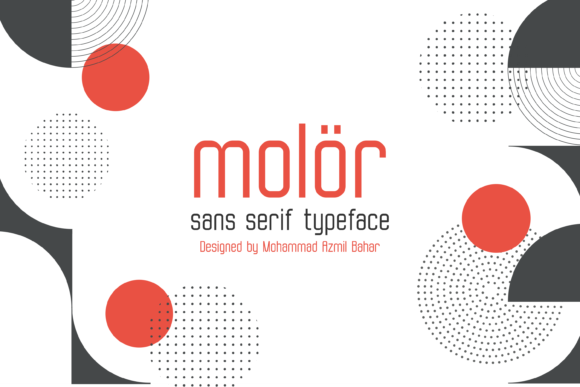
Molor Font
Indulge in the irresistible charm of Molor, a sans serif font that exudes a playful spirit with a dash of modern sophistication. Emanate creativity with every stroke, as Molor's unique and playful nature inspires your designs. Let its friendly curves and inviting lines capture attention, igniting a spark of joy and wonder in your projects.
Embrace the boundless possibilities that Molor presents. Its versatility knows no bounds, effortlessly adapting to a myriad of design endeavors. Whether you seek to craft eye-catching headlines that demand attention or weave captivating stories through elegant body text, Molor gracefully rises to the occasion. Its modern aesthetic seamlessly blends with traditional elements, creating a timeless appeal that transcends fleeting trends.
Experience the transformative power of Molor, a font that empowers you to express your individuality and creativity with unwavering confidence. Let its playful spirit ignite your imagination and embark on a journey of boundless design possibilities. Unleash the potential within your creative endeavors and leave an unforgettable mark with Molor, a font that embodies the essence of fun, modernity, and endless inspiration.